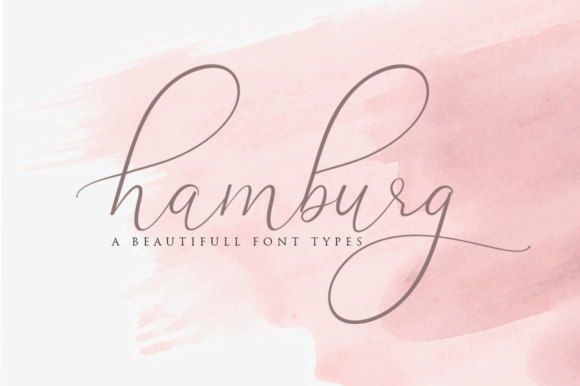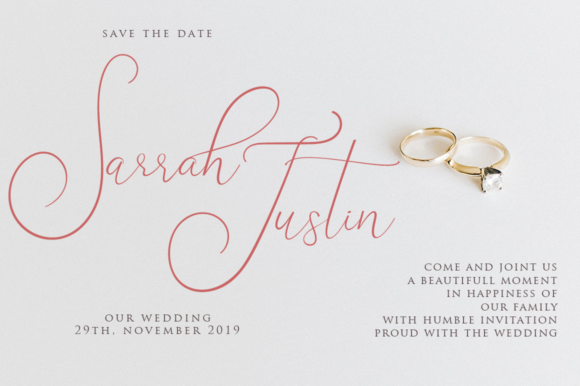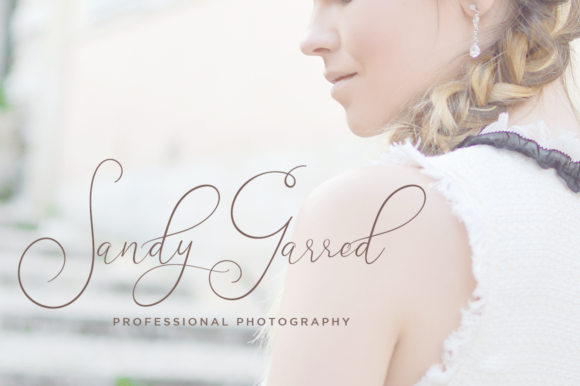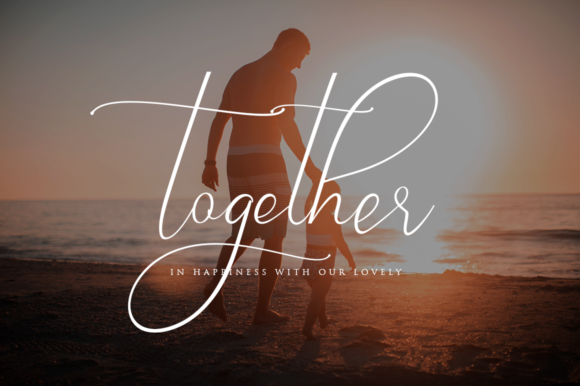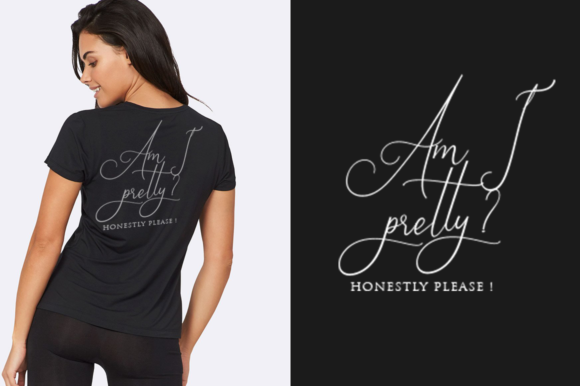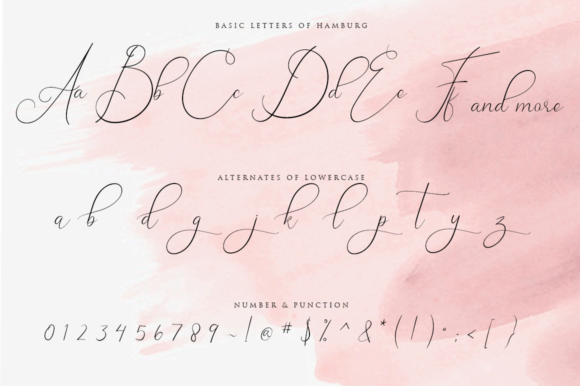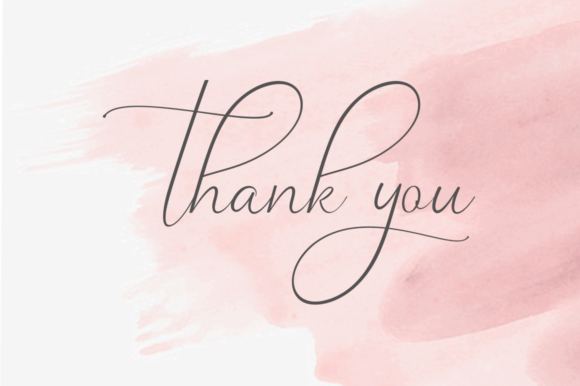
HomeScript FontsHamburg Font Script Fonts Hamburg Font FacebookXPinterestWhatsApp Hamburg Font Poster 2 Hamburg Font Poster 3 Hamburg Font Poster 4 Hamburg Font Poster 5 Hamburg Font Poster 6 Hamburg Font Poster 7 About Hamburg Font Hamburg is a beautiful script font that is perfect for branding, apparel, invitations, and much more. DOWNLOAD NOW People also explored Humble Chicks Font Valentine Beautiful Font The Flasher Font Love Story Font Gothic Vine Monograms Bananamilk Font Happy St.Patrick’s Day Font The Autumn Font Keidome Font 325 0 TagsHamburg Font Previous articleLucya Josephine FontNext articleRetropus Script Font LEAVE A REPLY Cancel reply Comment: Please enter your comment! Name:* Please enter your name here Email:* You have entered an incorrect email address! Please enter your email address here Website: Save my name, email, and website in this browser for the next time I comment. Personal Use Free Gupis Personal Use Free Read more about this font Eloquence Personal Use Free Read more about this font Sunbright Font Personal Use Free Read more about this font Boronic Personal Use Free Read more about this font BLOG The 10 Best Handwriting Fonts to Add Personality to Your Designs 10 of the Best Handwriting Fonts for Adding Personality to Your Designs There will undoubtedly be no other better choice than handwriting fonts to give... Fonts That Capture the Spirit of New York City To increase your work productivity, choose the most readable fonts. Exploring Font Trends